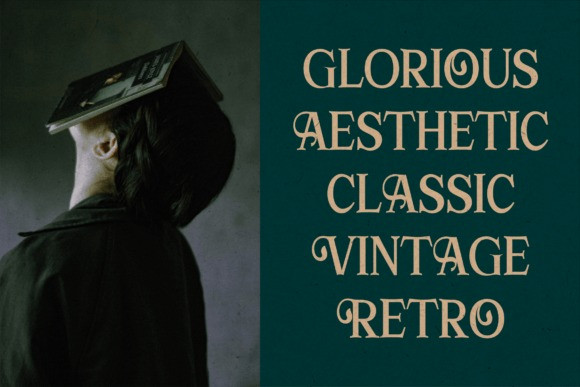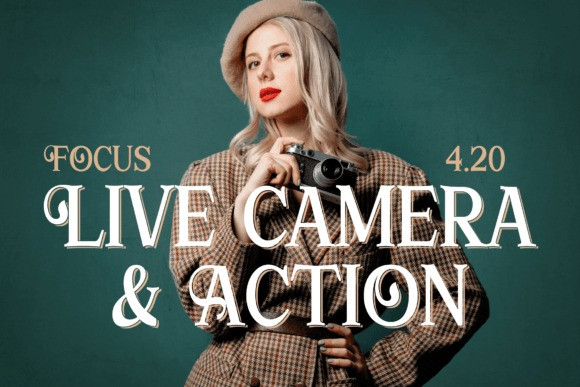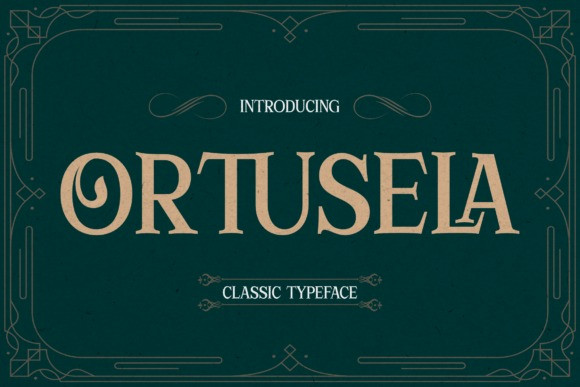
Ortusela Font
Ortusela Vintage Font is a modern and stylish serif font that has its own unique appearance. This typeface is perfect for an elegant and luxurious logo, fashion brands, magazines, apparel, lettering, quotes, and so much more.